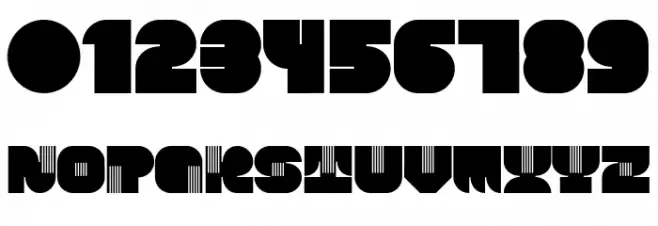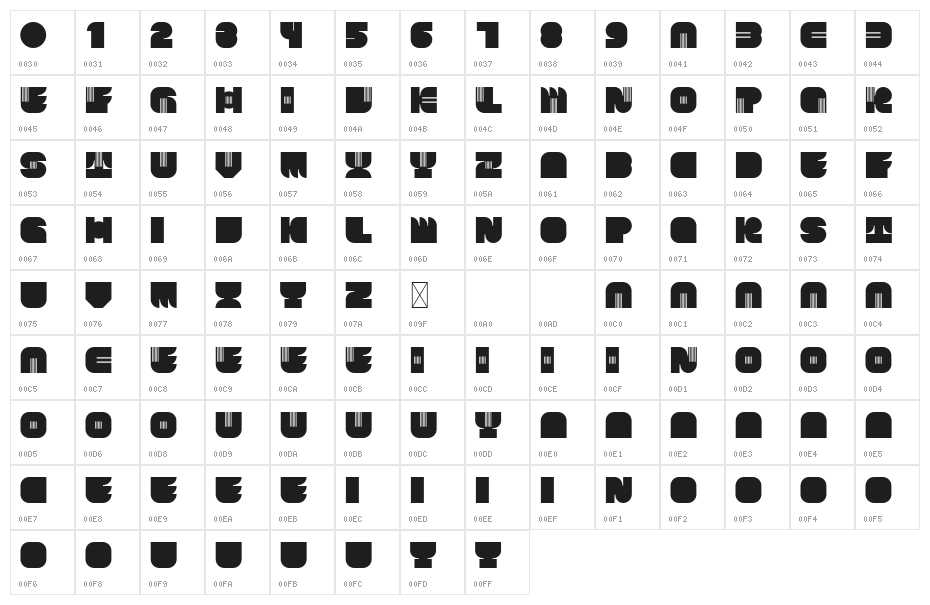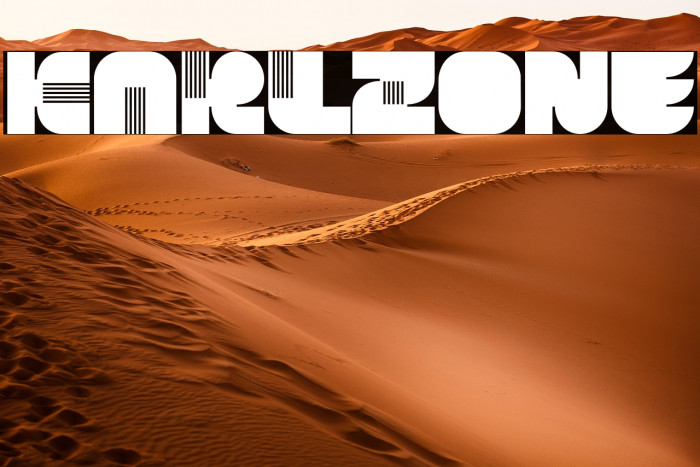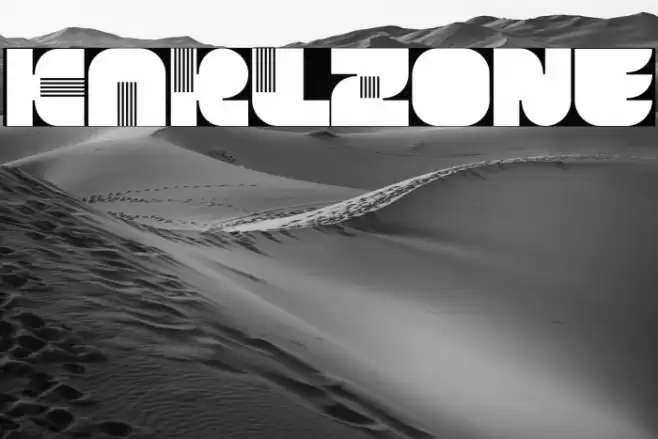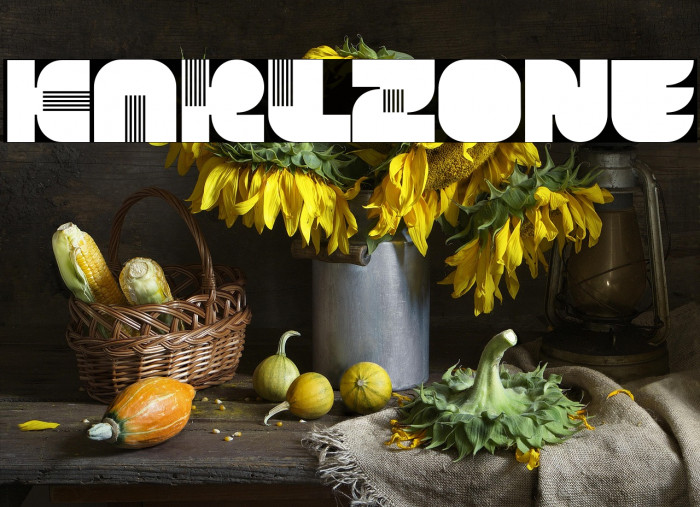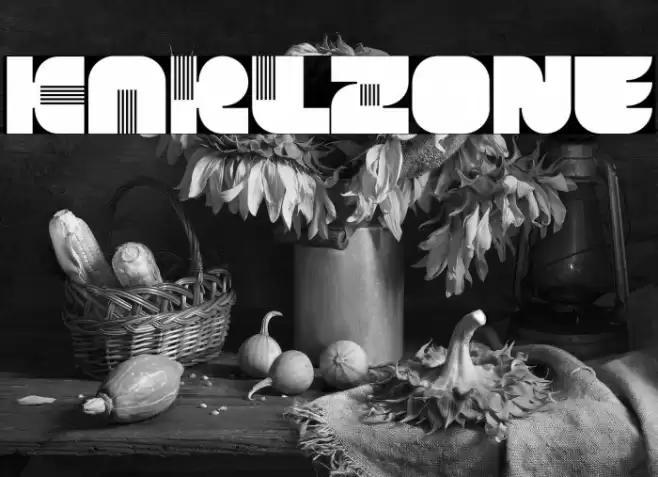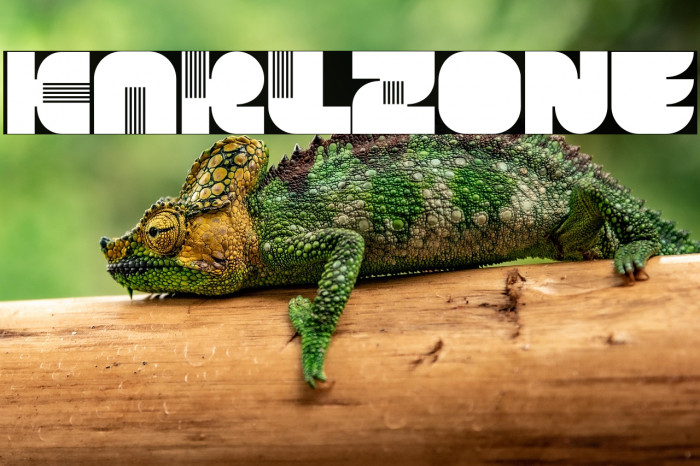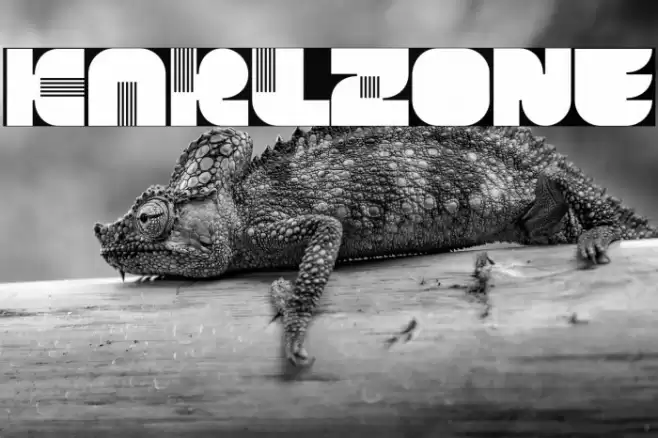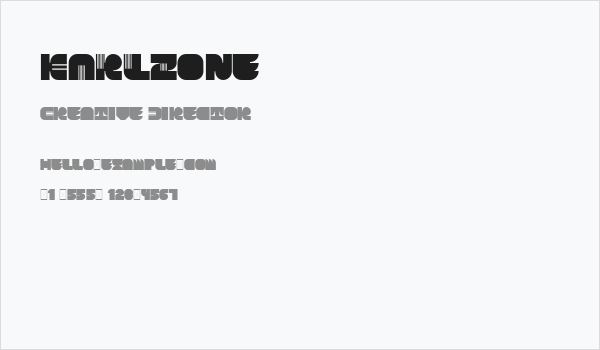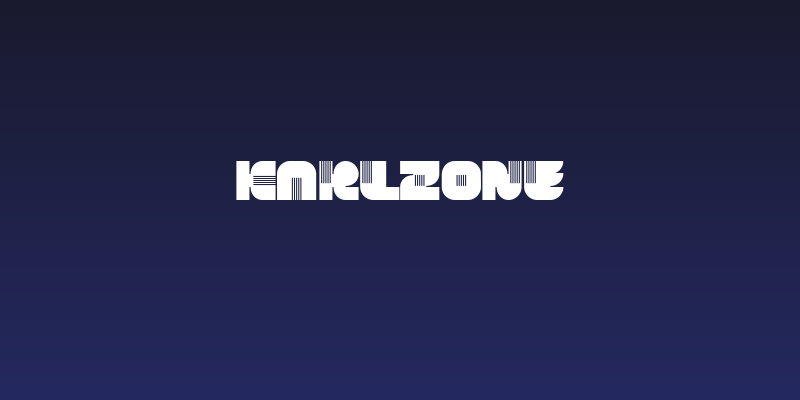
KARLZone
This font exhibits a bold and striking design with a strong geometric influence. The characters are constructed with thick, solid shapes, creating a sense of weight and presence. The uppercase letters feature unique cutouts and angles, adding a modern and artistic flair. The lowercase letters maintain the same boldness, ensuring consistency throughout the typeface. The numerals are equally robust, with a uniform thickness that complements the overall style. Special characters are designed with the same attention to detail, making them suitable for various creative applications.
A bold, geometric font with artistic cutouts and a modern flair.
- Proposed Projects: Ideal for branding, poster design, album covers, and any project requiring a strong visual impact.
- Use Case: Logos, Headlines, Posters